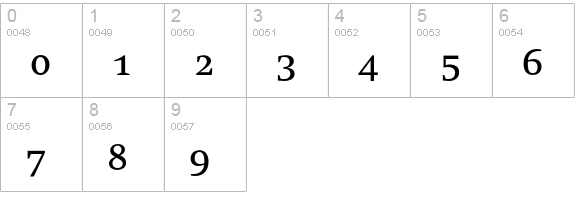
SwiftSCEF-Regular is the standard, neutral variant in the SwiftSCEF typeface family \xE2\x80\x94 well suited to general body text, paragraphs, and standard typographic work.
SwiftSCEF-Regular is a modern and stylish font that exudes elegance and sophistication. This versatile typeface is perfect for a wide range of design projects, from branding to packaging to editorial design. With its clean lines and balanced proportions, SwiftSCEF-Regular is sure to make a statement and capture attention. What makes SwiftSCEF-Regular even more appealing is that it is available for free download at FontsMarket.com. This means you can enhance your projects with this beautiful font without any cost. Whether you're a designer looking to add a touch of class to your work or a business owner wanting to elevate your branding, SwiftSCEF-Regular is the perfect choice. Download it today and see the difference it can make in your designs!